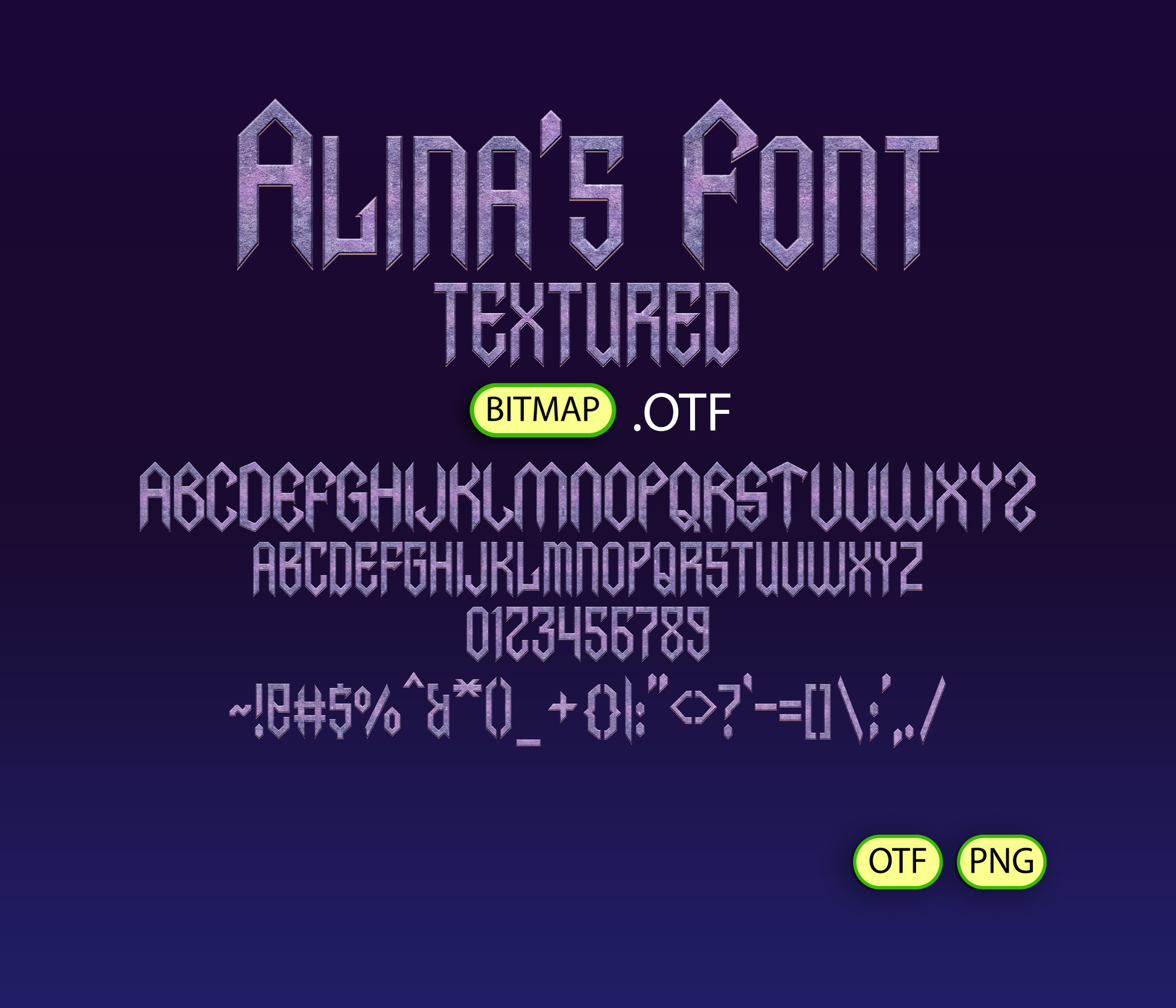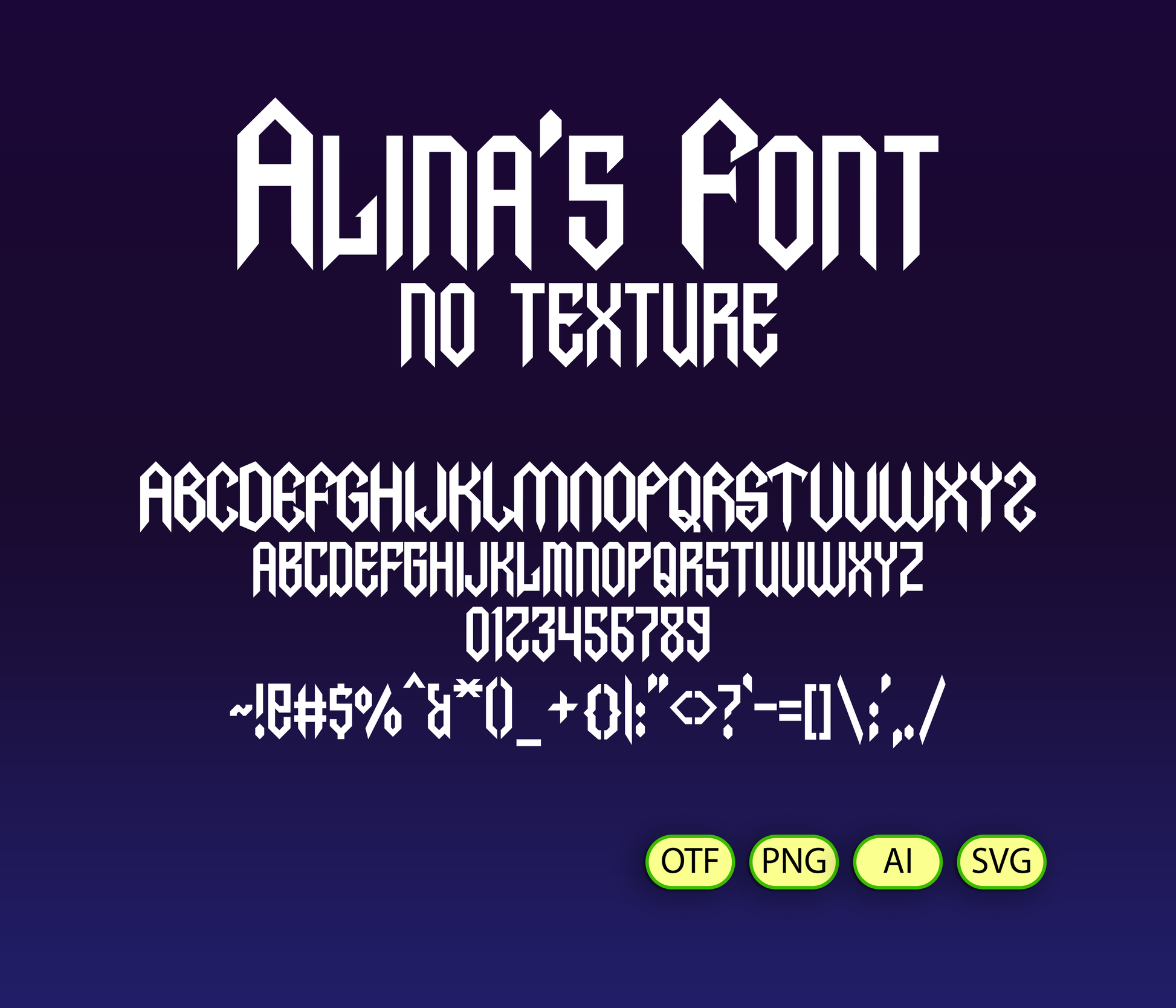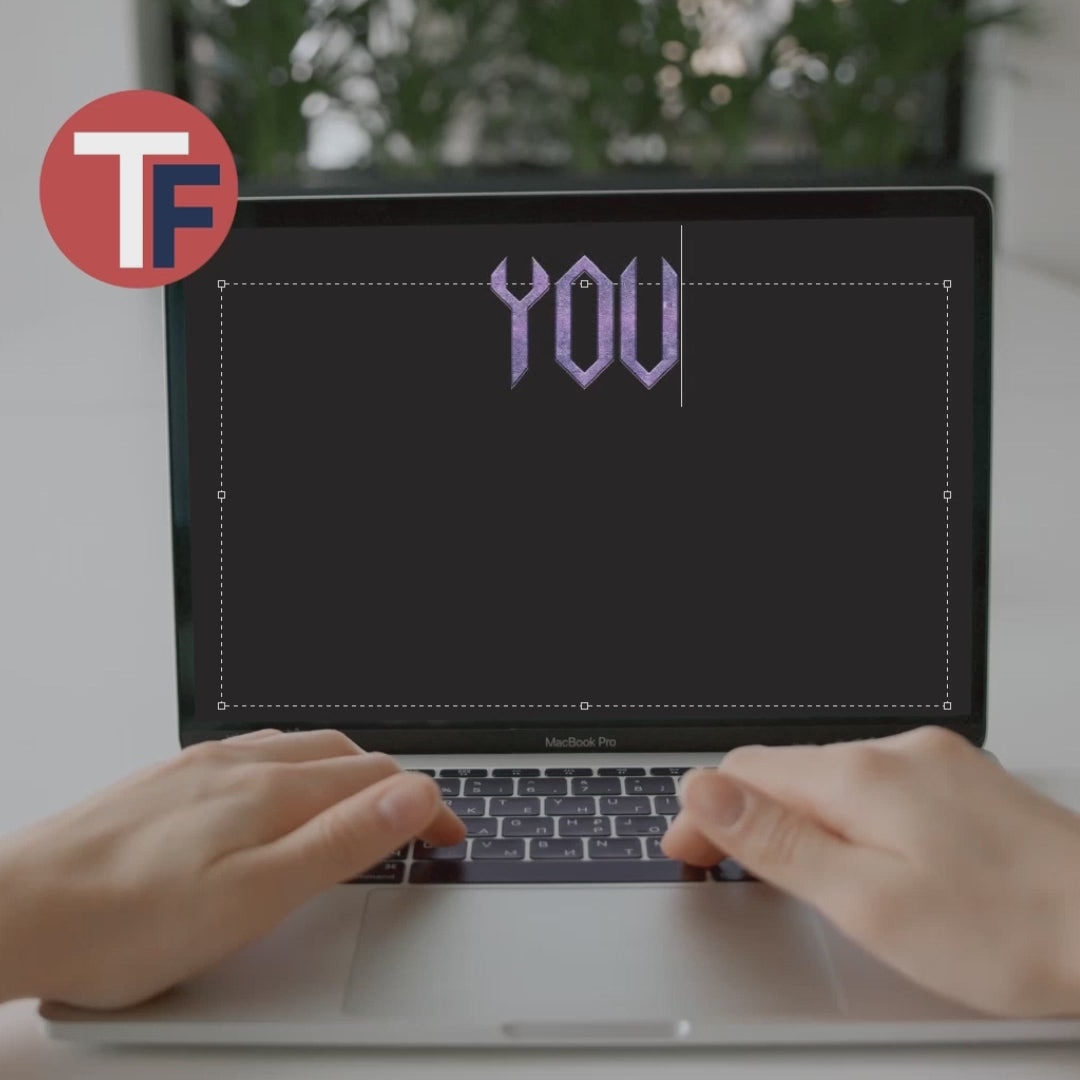
Ancient Guardians Font Textured
Unleash the Dark Mystique with the Ancient Guardians Font
Step into the shadowy world of ancient protectors with our Ancient Guardians font. Perfect for fans, event planners, and designers aiming to capture the dramatic and mystical essence of legendary protectors, this font brings the powerful and eerie spirit to your projects. Whether creating event invitations, themed merchandise, or digital content, our Ancient Guardians font ensures your projects resonate with a dark and enchanting atmosphere.
Our Ancient Guardians-inspired font features bold, jagged lines and intricate details that reflect the gothic and mythical style. This versatile font is ideal for:
To ensure maximum usability and flexibility, our Ancient Guardians font includes both textured and non-textured variants. The non-textured version ensures compatibility with all software, including Canva, enhancing accessibility and ease of use across various digital and print platforms.
Empower Your Designs
Our Ancient Guardians font pays tribute to legendary protectors, empowering you to infuse your designs with a dark, powerful spirit. Whether crafting promotional materials, unique merchandise, or adding a gothic touch to personal projects, this font allows you to communicate the dramatic and mystical essence of ancient guardians. Ready to bring a touch of ancient power to your creative projects? This font is your key to unlocking a world of gothic and captivating design.